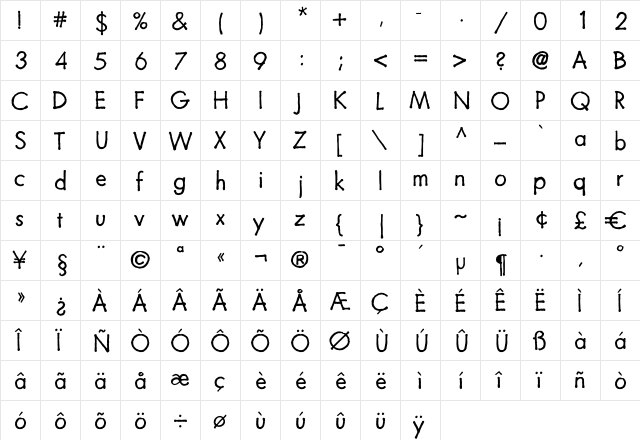
Futuramano Light Regular Font Preview
Futuramano Light Regular
Futuramano Light Regular Font Details
Design Context for Futuramano Light Typeface
Futuramano Light channels digital-age aesthetics through its sharp, structured letterforms — ideal for brands that want to signal innovation. The delicate stroke weight brings airiness and refinement to layouts.
Pro Tip: Try Futuramano Light with generous letter-spacing in UI labels and navigation — the geometric forms benefit from room to breathe.